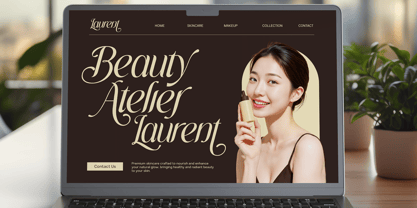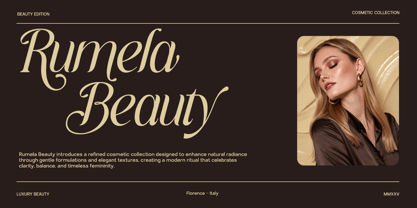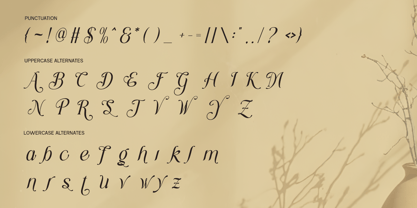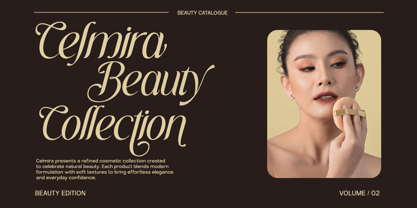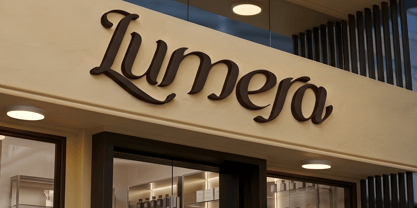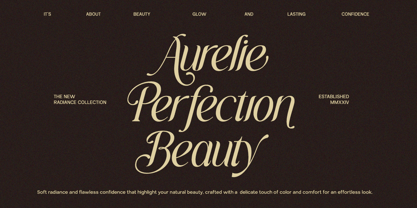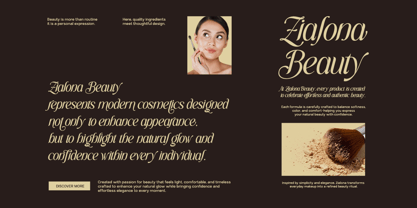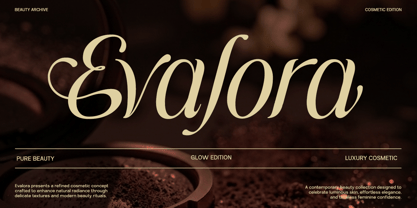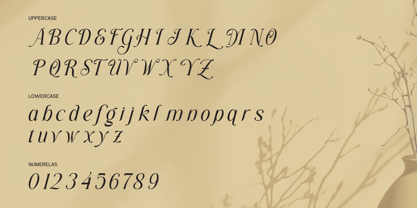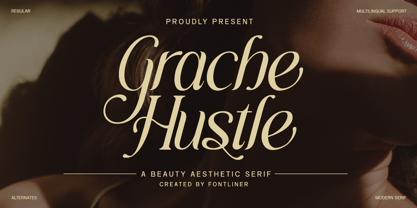
Grache Hustle
by Font Liner
The Grache Hustle Font Family was designed by Ghina Luthfiarieska and published by Font Liner. Grache Hustle contains 1 styles. More about this family
Grache Hustle is a stunning beauty aesthetic serif font that seamlessly blends soft femininity with luxurious elegance. Designed with graceful curves and refined details, this typeface exudes sophistication and romance, making it ideal for high-end visual storytelling. Each letterform is meticulously crafted to evoke charm, beauty, and timeless appeal. Grache Hustle excels in fashion branding, beauty product packaging, editorial layouts, wedding invitations, and luxury logos. Whether you're creating designs for cosmetics, lifestyle brands, or elegant social media content, Grache Hustle adds a premium and artistic touch that instantly elevates your work. With its stylish alternates and flowing serif structure, Grache Hustle offers both versatility and uniqueness. It’s not just a font—it’s a statement of elegance, ensuring your projects feel exclusive, graceful, and visually captivating.
Designers: Ghina Luthfiarieska
Foundry: Font Liner